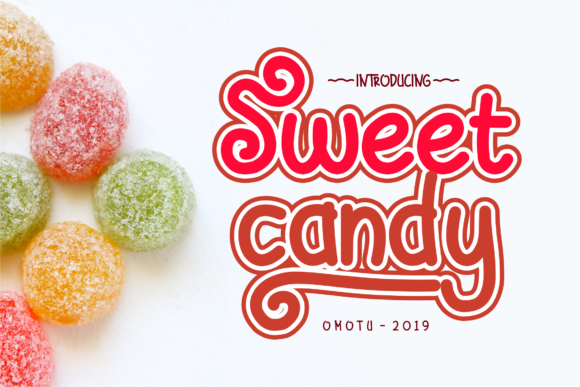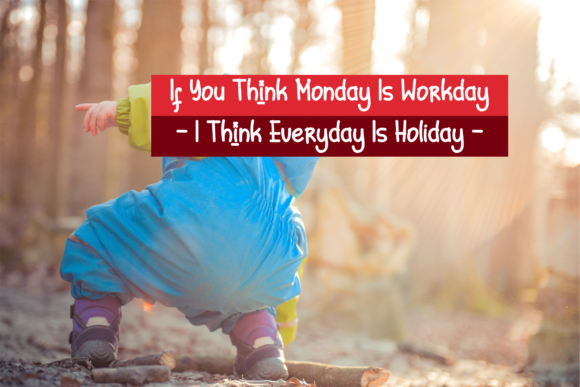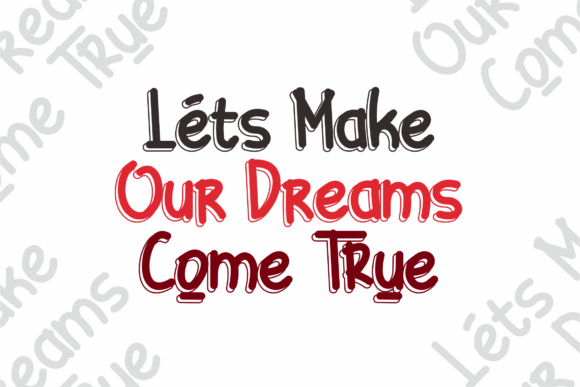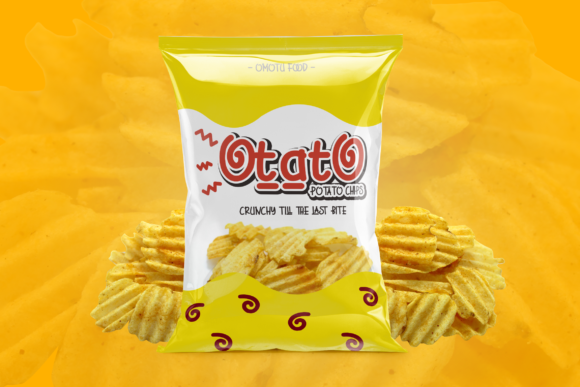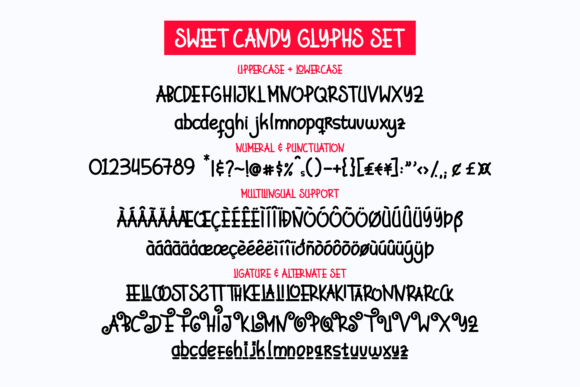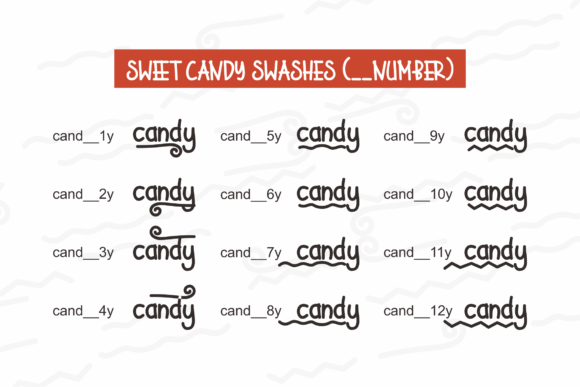
Sweet Candy Font
About Sweet Candy Font
The Sweet Candy is a fun font. It has a great readability and will add a playful touch to every design. It comes in a regular and outline style which gives you the opportunity to create multiple unique designs with just this one download.